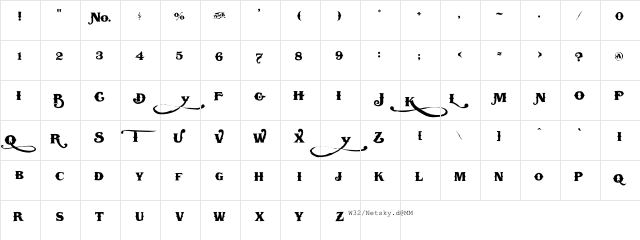
LHF Boston Truckstyle Regular
| Foundry | Ken McTague for Letterhead Fonts |
| Designer | Ken McTague |
Design Context for LHF Boston Truckstyle Typeface
LHF Boston Truckstyle is a composed and adaptable typeface that performs quietly and consistently across a wide range of design contexts.